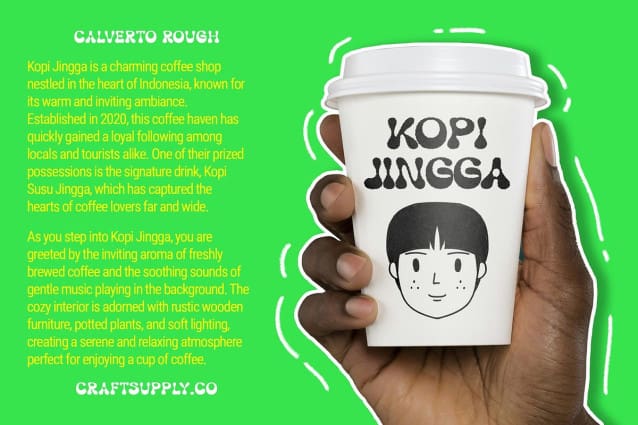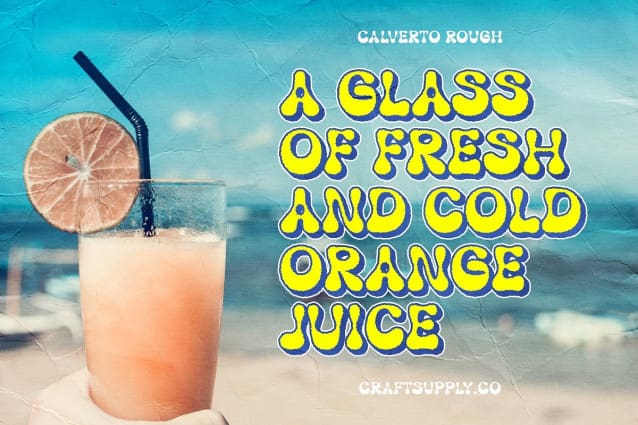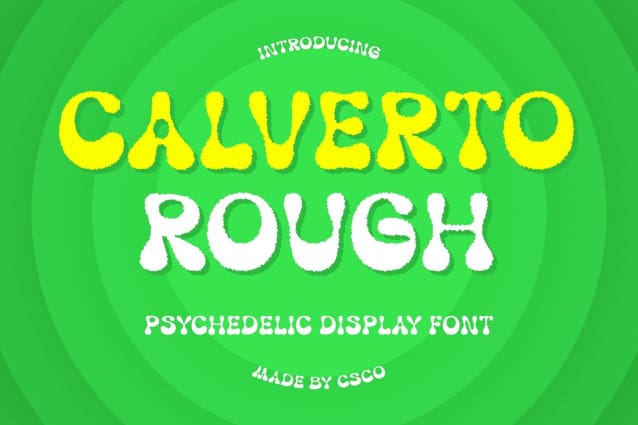
Calverto Rough Font
Calverto Rough Font is a display font that combines bold bubble shapes with funky, psychedelic, and retro styles, enhanced by a rough effect. Its unique characteristics, like the bubble shapes, create a playful, fun, and funky impression.
The retro vibe of Calverto Rough adds a touch of nostalgia, while the psychedelic touch brings an eccentric, colorful feel reminiscent of the 60s and 70s. This combination creates a bold, cheerful, and unique look, ideal for designs that aim to highlight creativity and uniqueness.
The rough effect of Calverto Rough adds an edgy and textured feel to the font, enhancing its overall personality. This roughness gives the font a handmade and artistic look, perfect for designs that want to convey a sense of authenticity and creativity.
Whether you’re creating posters, album covers, or branding materials, Calverto Rough is sure to make a statement. Its bold bubble shapes and funky styles make it perfect for designs that need to stand out and grab attention.
Elevate your designs with Calverto Rough, where bold bubble shapes meet funky and psychedelic styles. Its unique blend of characteristics creates a bold and cheerful look that is sure to make your designs stand out.